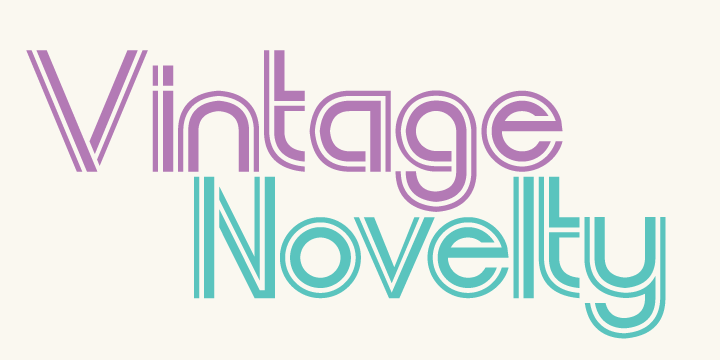
EB Futuretro™
Designed by: Erik Jarl Bertell
Designed when: 2002
EB Futuretro
Futuretro is a font that transfers you to an age that never was.
Seedy outer space bars, cheap perfume, laser beams, raunchy alien vixens with multiple tits ...
Futuretro immediately transfers you to an age that never was – that of the sleaziest and most obscure sci-fi disco sex flicks known to man.
The design is at the same time generic and familiar yet rich with obscure details.
Futuretro is very much recommended for any adult movie with a space theme.